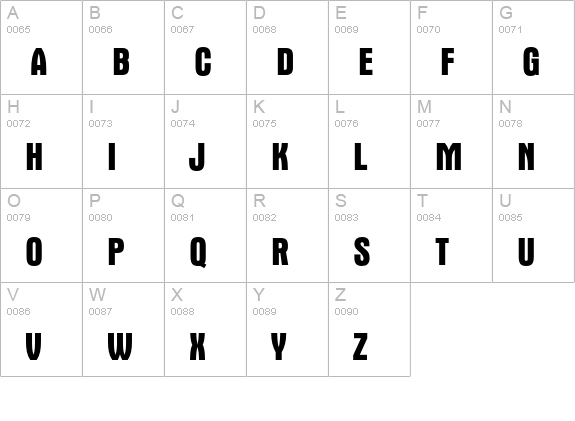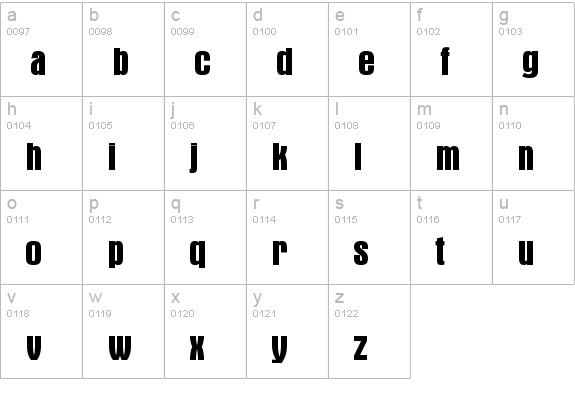
Aurora Bold Condensed is a strong, high-contrast, condensed-width variant in the Aurora typeface family \xE2\x80\x94 well suited to headlines, attention-grabbing titles, and strong calls-to-action.
Aurora Bold Condensed font is a striking and modern typeface that exudes confidence and strength. Its condensed design allows for maximum impact and readability in a variety of design applications. The bold strokes and clean lines of Aurora Bold Condensed make it perfect for headlines, posters, and other display purposes where you want your text to stand out. What's even better is that Aurora Bold Condensed font is available for free download at FontsMarket.com. This means you can easily access this versatile typeface for all your design needs without any cost. Whether you're working on a branding project, advertising campaign, or any other creative endeavor, Aurora Bold Condensed font is a reliable choice that will elevate your designs to the next level. Download it today and unleash the power of this exceptional font in your projects.